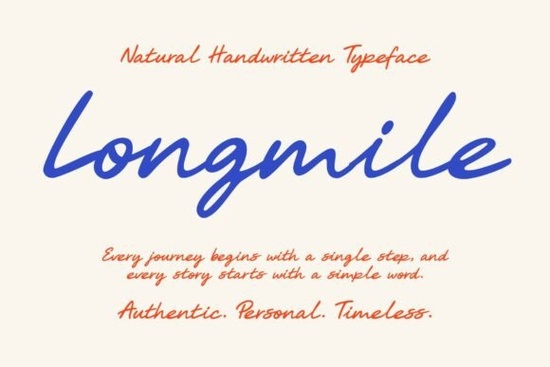
If you're looking for a script font that feels personal without looking messy or overly casual, Longmile Font is a thoughtful choice. It’s not trying to mimic calligraphy or imitate brush lettering it’s designed to echo the quiet confidence of real handwriting: relaxed, legible, and gently expressive. Whether you’re designing wedding invitations, crafting social media quotes, or building a small business brand identity, Longmile brings warmth and clarity in equal measure. Its smooth strokes and balanced spacing make it surprisingly versatile especially for print-on-demand projects where readability and charm both matter.
What makes Longmile different from other script fonts?
Many handwritten fonts lean too far into either “playful” or “formal,” making them hard to use across contexts. Longmile sits comfortably in the middle. It avoids exaggerated swashes or tight connections that can hurt legibility at smaller sizes. Instead, it uses subtle variations in stroke weight and natural entry/exit points just like someone writing with a fine-tip pen. That means it works well on product packaging, website headers, and even embroidered patches (when converted to vector outlines). You’ll notice how easily it pairs with clean sans-serifs like Inter or Lato for contrast without clashing.
Where does Longmile fit in your design workflow?
Think of it as your go-to for moments when you want people to feel seen, not just addressed. A handmade soap label? Yes. A boutique café’s Instagram story announcing weekend specials? Absolutely. A minimalist baby announcement with soft watercolor textures? Perfect. It’s especially helpful if you’ve tried other script fonts and found them too stiff (like some formal scripts) or too busy (like dense connected scripts). Longmile keeps breathing room between letters while still feeling cohesive and intentional.
For crafters using Cricut or Silhouette software, the OpenType features including standard ligatures and alternate characters give you light customization without needing advanced design tools. And because it includes both uppercase and lowercase, plus punctuation and numerals, you won’t hit a wall halfway through designing a price tag or seasonal greeting card.
How does it compare to similar fonts on Creative Fabrica?
If you like Longmile’s balance of authenticity and polish, you might also appreciate Ordinary Summer, which has a slightly airier, sun-drenched rhythm great for lifestyle brands. Bromello offers more pronounced contrast and bolder downstrokes, ideal when you need presence at larger sizes. For something with more personality and slight bounce, Mafuinka adds gentle irregularity without sacrificing structure. And if your project leans nostalgic or sporty, Baseball Handwriting brings friendly, unpretentious energy though it’s less refined for luxury or wedding use than Longmile.
Each of these serves a different mood and audience. But among them, Longmile stands out for its quiet consistency: it doesn’t shout, but it holds attention. You can see why designers return to it again and again not as a trend-chaser, but as a reliable voice.
Real-world tips for using Longmile well
- Pair it thoughtfully: Use it for headlines or short phrases, then switch to a neutral sans-serif (like Poppins or Montserrat) for body text. Avoid pairing it with other script fonts unless they’re very distinct in weight and rhythm.
- Watch line length: On websites or printed cards, keep lines under 60 characters when using Longmile at 24–36pt. Longer lines can blur its natural flow.
- Test before printing: Especially on kraft paper or textured stock its fine details hold up well, but always proof a physical sample first.
- Don’t over-process it: Drop shadows, heavy outlines, or extreme tracking adjustments tend to mute its organic feel. Let it breathe.
Next step: Try Longmile in a low-stakes project first like a thank-you note template or a simple Instagram quote graphic. See how it feels to type with it. Does it match the tone you’re aiming for? If yes, save the file and build from there. Small tests often reveal more than big assumptions.